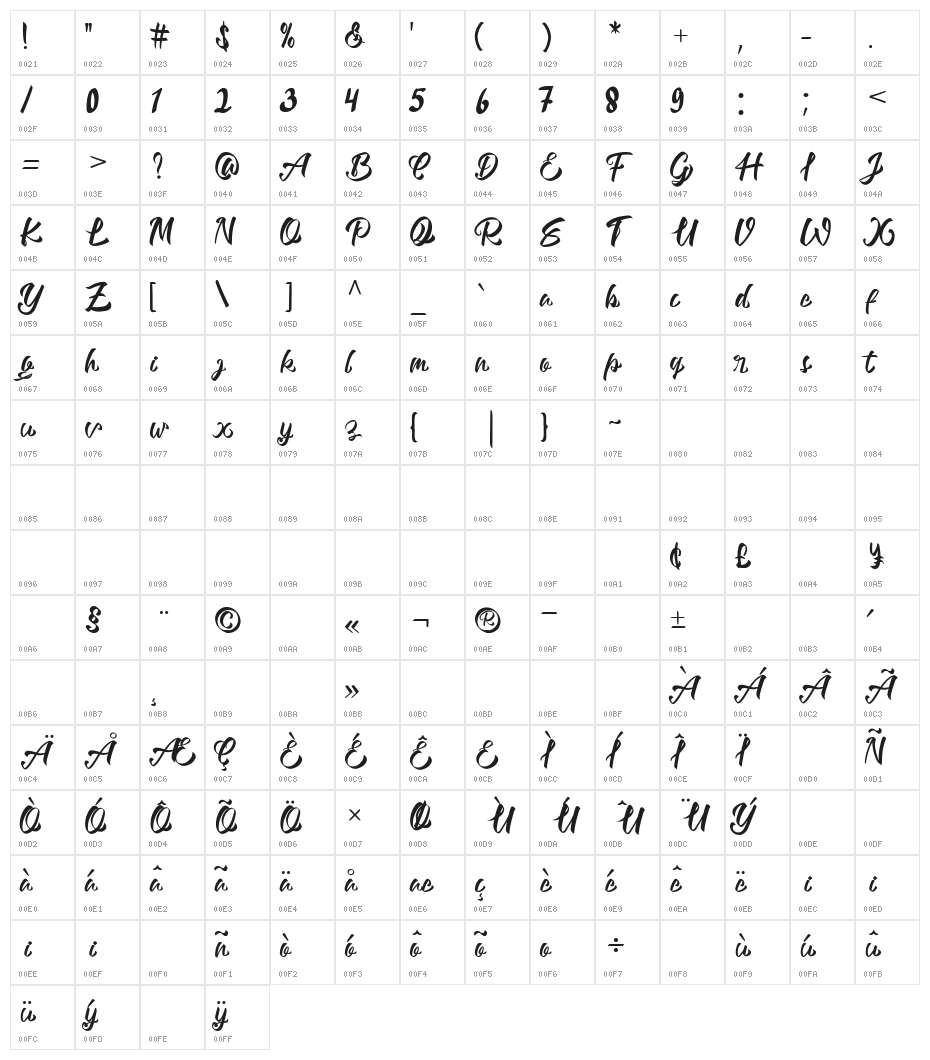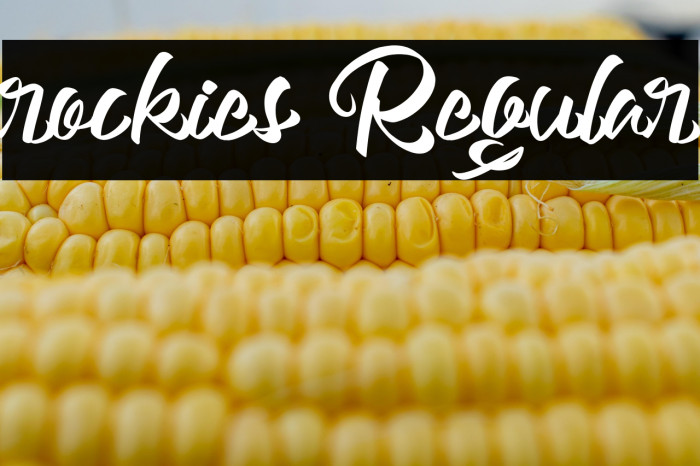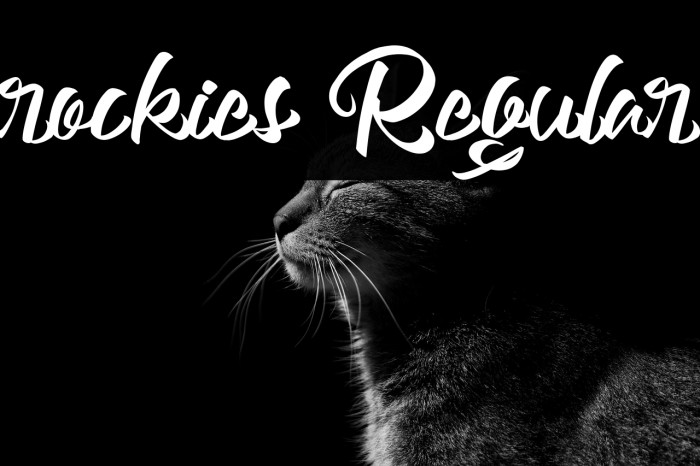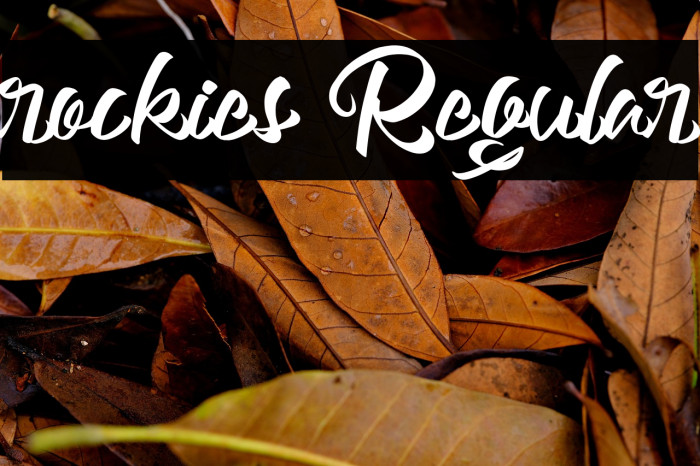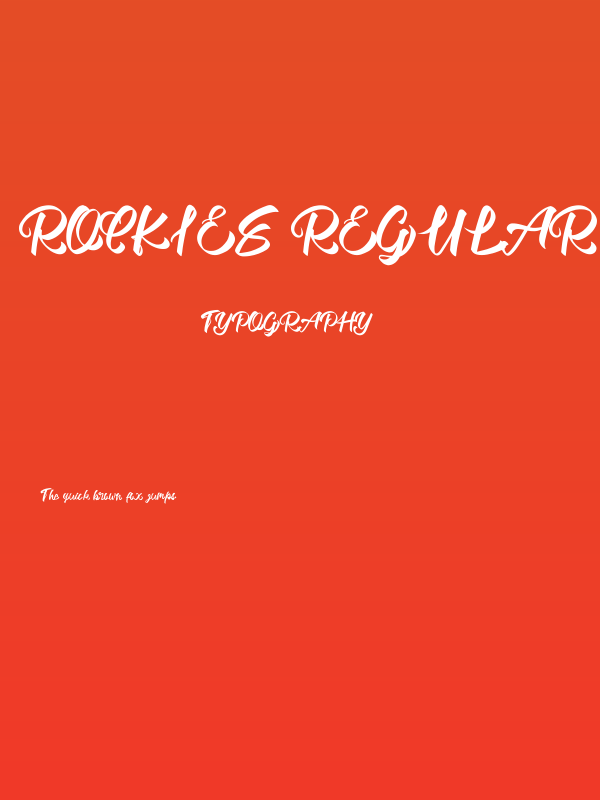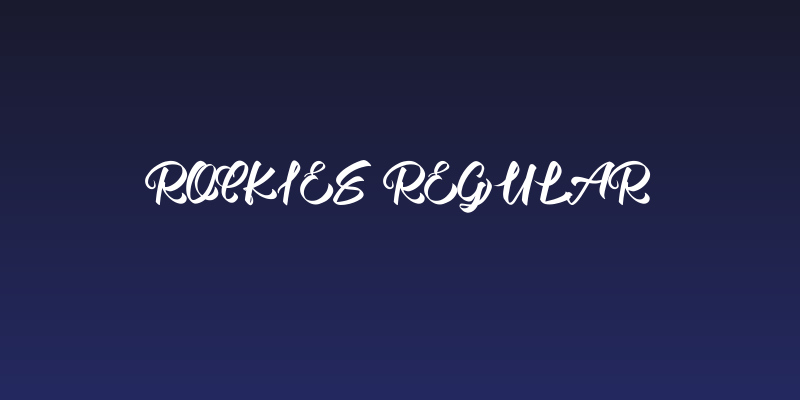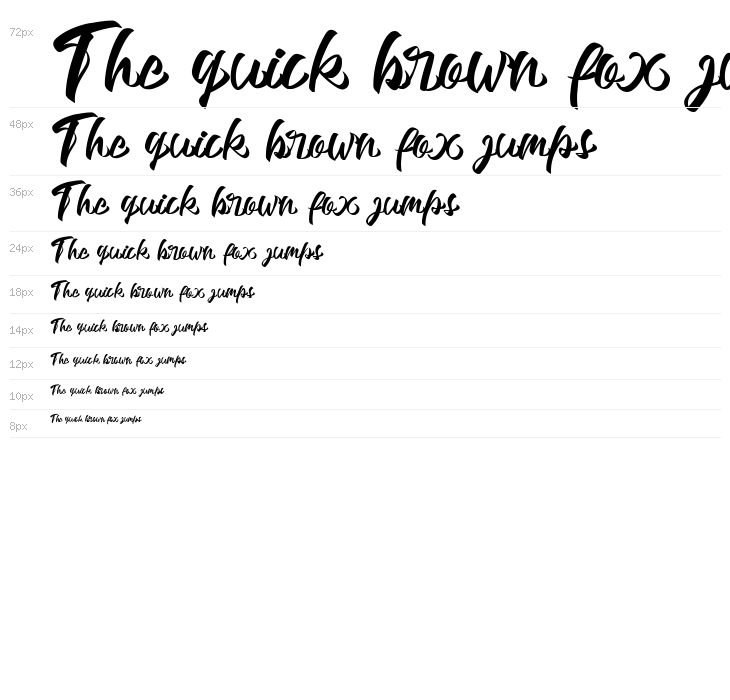
rockies Regular Font
rockies Regular Description
This font features a bold and expressive script style, characterized by its flowing, cursive letterforms. The uppercase letters are elegantly designed with sweeping curves and loops, giving a sense of movement and fluidity. The lowercase letters maintain a consistent style, with smooth connections between characters, enhancing the script's cohesive appearance. Numbers and special characters are crafted with the same attention to detail, ensuring uniformity across the font. Its bold strokes and dynamic shapes make it highly legible while retaining a decorative flair.